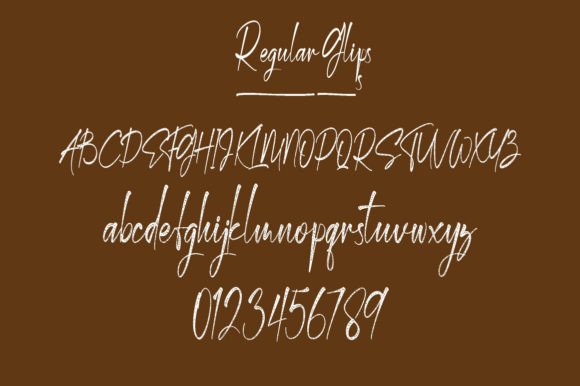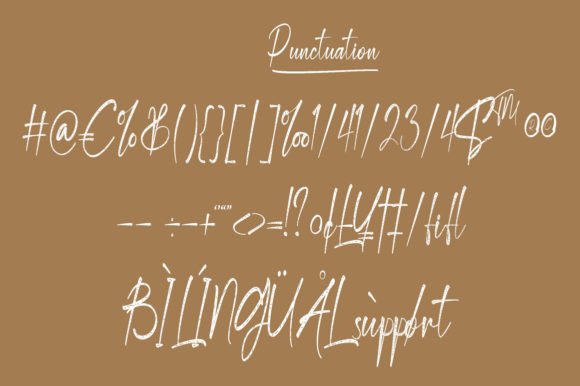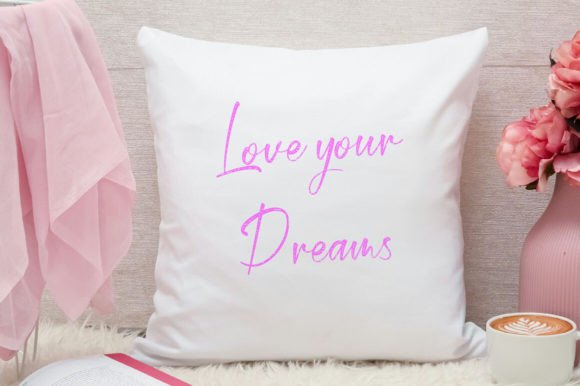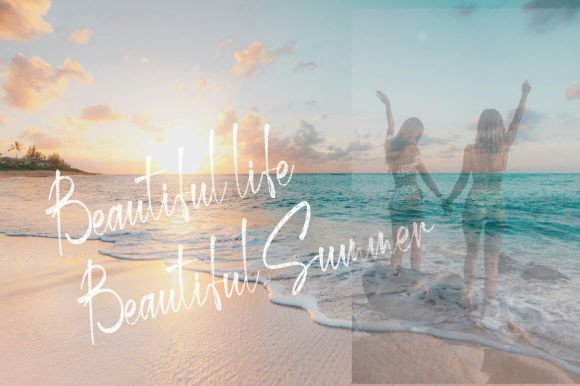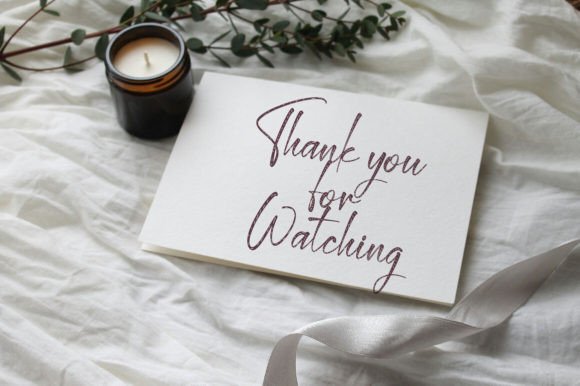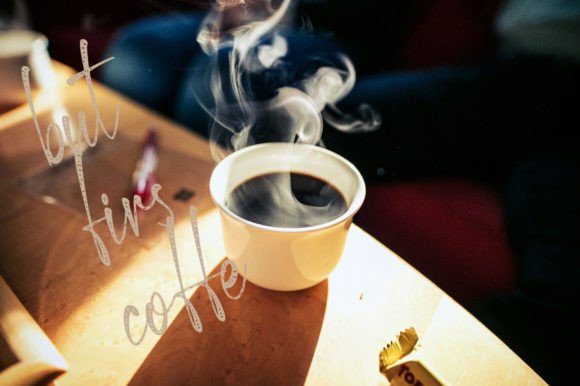
Introducing Britania Font: Elevate Your Designs with a Stylish and Bold Handwritten Touch
Are you tired of using the same old fonts for your design projects? Look no further than Britania Font, a stunning handwritten font that’s sure to add a touch of style and sophistication to your work. Crafted with care and attention to detail, Britania is a gorgeous and bold font that’s perfect for headlines, logotypes, and any other design project where you want to make a statement.
A Strong, Confident, and Dynamic Font
Britania Font reads as strong, confident, and dynamic, making it the perfect choice for designers who want to add a sense of energy and excitement to their work. With its bold and expressive letterforms, Britania is sure to grab attention and leave a lasting impression on your audience. Whether you’re working on a logo, a poster, or a website, Britania Font is the perfect choice for anyone who wants to add a touch of personality and flair to their design.
Adding Nostalgic Character to Your Designs
One of the things that sets Britania Font apart from other fonts is its ability to add a sense of nostalgia to your designs. With its classic and timeless feel, Britania is reminiscent of a bygone era, evoking memories of vintage posters, classic logos, and other retro design elements. Whether you’re looking to create a design that’s vintage-inspired or simply want to add a touch of warmth and character to your work, Britania Font is the perfect choice.
Britania Font is perfect for designers and crafters who want to add a personal touch to their work. With its unique and expressive letterforms, Britania is ideal for a wide range of design projects, including:
- Website headers and titles
- Stationery and packaging
Key Features of Britania Font
So what makes Britania Font so special? Here are just a few of its key features:
- Bold and expressive letterforms: Britania Font features bold and expressive letterforms that are sure to grab attention.
- Handwritten feel: With its handwritten feel, Britania Font adds a personal touch to your designs.
- Classic and timeless: Britania Font has a classic and timeless feel that’s perfect for designers who want to create a vintage-inspired look.
- Easy to read: Despite its bold and expressive letterforms, Britania Font is easy to read, making it perfect for use in headlines and titles.
Tips for Using Britania Font
Here are a few tips for using Britania Font in your design projects:
- Use it as a headline font: Britania Font is perfect for use in headlines and titles, where its bold and expressive letterforms can really make an impact.
- Pair it with a simple font: For body text, pair Britania Font with a simple and easy-to-read font to create a striking contrast.
- Experiment with different colors: Britania Font looks great in a wide range of colors, so don’t be afraid to experiment and find the perfect shade for your design.
In conclusion, Britania Font is a stunning handwritten font that’s perfect for designers and crafters who want to add a touch of style and sophistication to their work. With its bold and expressive letterforms, classic and timeless feel, and easy-to-read design, Britania Font is the perfect choice for a wide range of design projects. So why not give it a try and see the difference it can make in your designs?